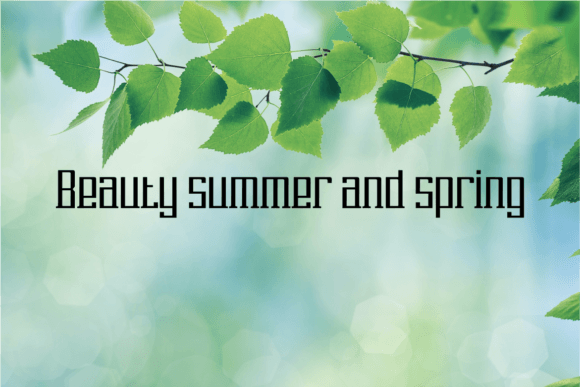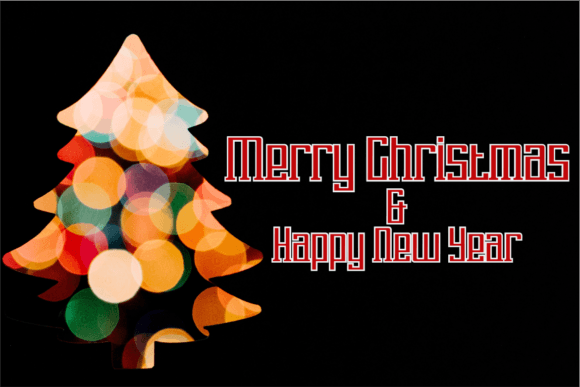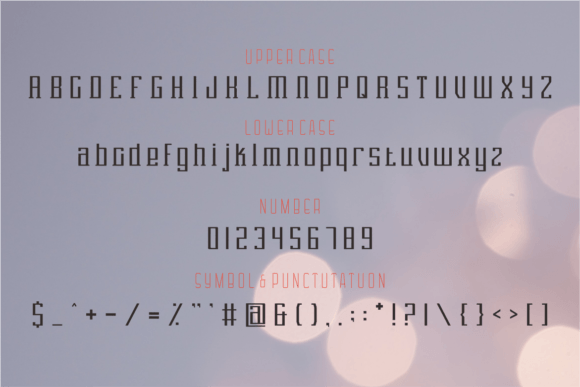
Gonetoa Font: A Serif Font with a Touch of Uniqueness for Every Season
Are you tired of using the same old fonts for your designs? Look no further! We’re excited to introduce the Gonetoa Font, a serif font with a slight twist that sets it apart from the rest. This versatile font is perfect for designers and crafters looking for a unique touch to add to their creations, no matter the season.
The Story Behind Gonetoa Font
This time, we made a serif font with slight modifications to our style and its own uniqueness. Our goal was to create a font that would not only be visually appealing but also adaptable to various design projects. After careful consideration and attention to detail, the Gonetoa Font was born. With its distinctive features, this font is sure to elevate your designs and make them stand out.
Perfect for Every Season
One of the best things about the Gonetoa Font is its versatility. Whether you’re designing for Christmas, New Year, winter, spring, or any other season, this font is perfect for the job. Its classic serif design ensures that it will remain timeless, while its unique twist adds a touch of modernity. Use it to create festive greeting cards, holiday-themed posters, or even decorate your craft projects.
Ideal for Greeting Cards and Creative Products
The Gonetoa Font is an excellent choice for designers and crafters who create greeting cards, invitations, and other paper crafts. Its elegant design makes it perfect for formal and informal occasions alike. Additionally, this font can be used to add a personal touch to creative products such as scrapbook pages, journal entries, and even handmade gifts.
Key Features of Gonetoa Font
• Serif font with a unique twist: The Gonetoa Font features a classic serif design with subtle modifications that set it apart from other fonts.
• Versatile: Use it for various design projects, including greeting cards, posters, and craft projects.
• Seasonal adaptability: Perfect for Christmas, New Year, winter, spring, and any other season.
• Elegant and modern: The Gonetoa Font strikes the perfect balance between classic and modern design.
Tips for Using Gonetoa Font
To get the most out of the Gonetoa Font, here are some tips to keep in mind:
• Experiment with font sizes: The Gonetoa Font looks great in various font sizes, from large headings to smaller body text.
• Pair it with other fonts: Try pairing the Gonetoa Font with other fonts to create a unique and visually appealing design.
• Use it for titles and headings: The Gonetoa Font is perfect for titles and headings, adding a touch of elegance to your designs.
In conclusion, the Gonetoa Font is a versatile and elegant serif font that is perfect for designers and crafters looking to add a unique touch to their creations. Its adaptability to various seasons and design projects makes it an excellent addition to any design library. Whether you’re creating greeting cards, posters, or craft projects, the Gonetoa Font is sure to elevate your designs and make them stand out.